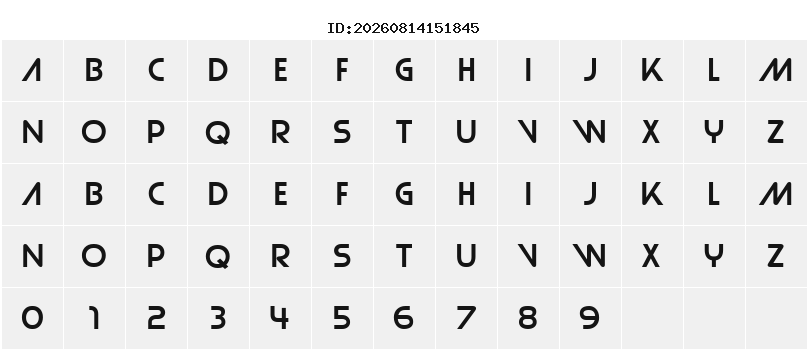
Strasua Preview
• Font Name: Strasua
• Full Font Name: Strasua
• Designer: Ray Larabie
• Manufacturer: Ray Larabie
About Strasua.ttf
Strasua.ttf is a modern, elegant sans-serif font designed for ultimate readability and visual harmony. Perfect for branding, headlines, web design, and print materials.